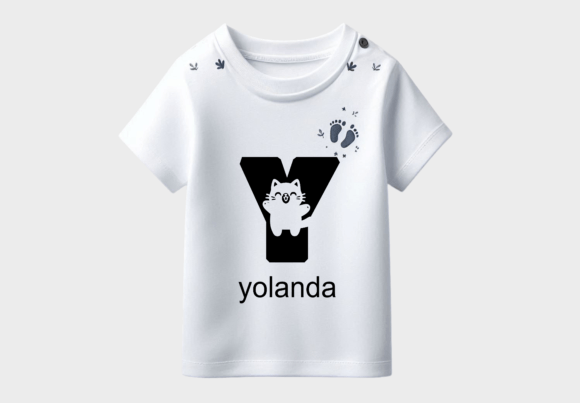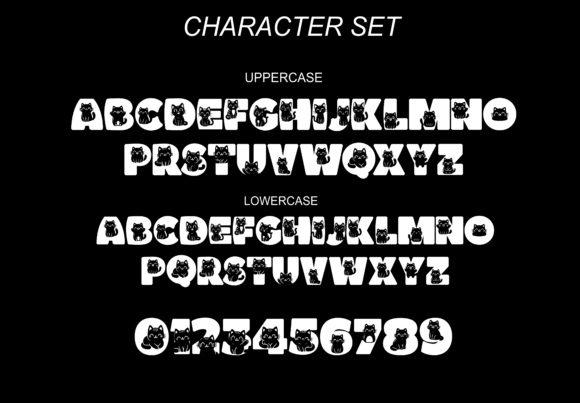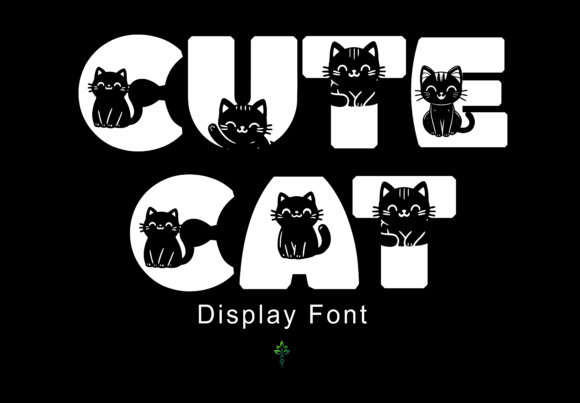
Discover the Enchanting World of Cute Cat Font
Welcome to the captivating realm of “Cute Cat”, a stunning, audaciously-styled font that effortlessly radiates the offbeat allure and contagious energy of a mystical cosmos. This exceptional typeface is designed to mesmerize and delight, making it an ideal choice for designers and crafters seeking to add a touch of magic to their projects.
The Inspiration Behind Cute Cat Font
The Cute Cat font is inspired by the whimsical and playful spirit of a jack-o-lantern’s glowing smile. Each character in this typeface illuminates with a mesmerizing charm, making it perfect for designs that require a bold and eye-catching approach. The font’s creator aimed to marry sophisticated structure with a playful spookiness, resulting in a unique character that carves out a niche at the intersection of bold innovation and blissful celebration.
Key Features of Cute Cat Font
The Cute Cat font boasts bewitching features that flawlessly blend with any medium, augmenting the legibility and overall visual appeal. Some of its key features include:
• Unique Character Design: Each character in the Cute Cat font is carefully crafted to radiate a sense of mystique and wonder.
• Playful Spookiness: The font’s audaciously-styled approach adds a touch of playful spookiness, making it perfect for designs that require a bold and eye-catching approach.
• Sophisticated Structure: The Cute Cat font combines sophisticated structure with a playful approach, resulting in a unique and captivating typeface.
• Versatility: The font’s exceptional design and legibility make it versatile for a range of applications, from digital designs to print materials.
Applications of Cute Cat Font
The Cute Cat font is an excellent choice for a wide range of design projects, including:
• Digital Designs: Use the Cute Cat font to add a touch of magic to your website, social media graphics, or digital advertisements.
• Print Materials: The font’s exceptional legibility and visual appeal make it perfect for print materials, such as brochures, flyers, or business cards.
• Crafting Projects: Add a touch of whimsy to your crafting projects, such as handmade cards, scrapbooking, or DIY decorations.
Why Choose Cute Cat Font?
The Cute Cat font offers a unique combination of style, sophistication, and playfulness, making it an excellent choice for designers and crafters. Here are some reasons why you should choose the Cute Cat font:
• Unique Design: The Cute Cat font offers a one-of-a-kind design that will set your projects apart from the rest.
• Exceptional Legibility: The font’s sophisticated structure and clear design ensure exceptional legibility, making it perfect for a range of applications.
• Versatility: The Cute Cat font can be used in a variety of design projects, from digital designs to print materials and crafting projects.
Font Name Cute Cat Font
Author Infontree
In conclusion, the Cute Cat font is a captivating and enchanting typeface that offers a unique combination of style, sophistication, and playfulness. Its exceptional design, legibility, and versatility make it an excellent choice for designers and crafters seeking to add a touch of magic to their projects. Explore the spell of Cute Cat, a symphony of phenomenal design and vibrant free-spiritedness, and discover the endless possibilities that this amazing font has to offer.